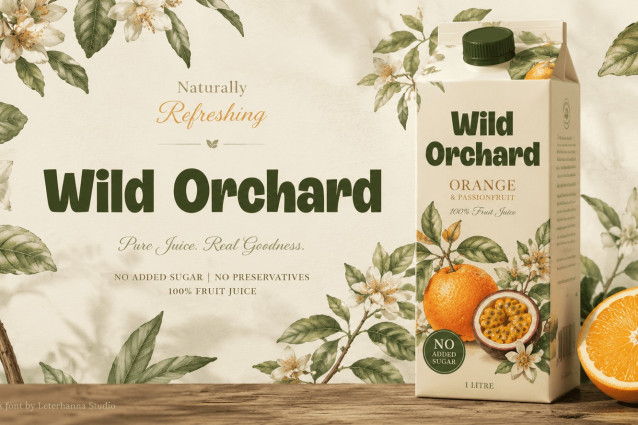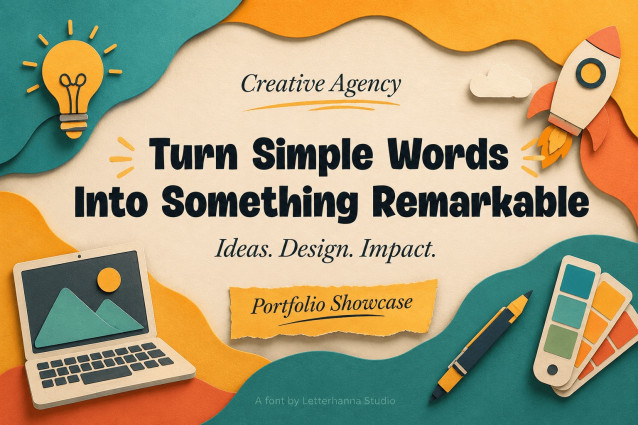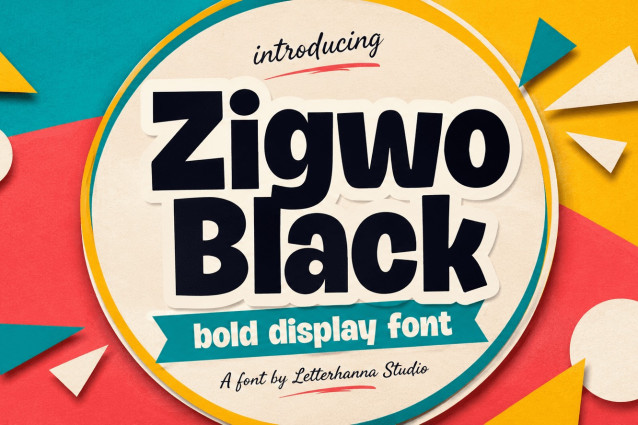
The idea behind Zigwo Black came from a question worth asking about any thick font on the market: why do so many “bold” typefaces feel heavy but forgettable? Weight alone doesn’t guarantee impact. A font can be massive and still fade into the background if it lacks rhythm, warmth, or personality.
So the design process started small — one chunky alphabet letters sketch at a time. Each letterform was tested not just for thickness, but for how it felt sitting next to its neighbors. Did the word still breathe? Did the shape stay friendly at large sizes and still hold together at small ones? Letter by letter, the alphabet took shape around one goal: bold enough to lead a headline, human enough to still feel inviting.
Say hello to Zigwo Black, a bold display font built for designs that refuse to blend in. This is a chunky font through and through — thick, confident strokes paired with slightly rounded, hand-finished edges that give every letter real personality. Uppercase forms feel like solid stamped blocks, while the lowercase alphabet keeps a bouncy, playful rhythm that softens all that boldness into something genuinely inviting.
Zigwo Black was designed to solve a common problem: too many bold fonts look heavy but feel stiff. This one is different. It’s loud without being aggressive, thick without losing clarity, and playful without sacrificing structure. Whether you’re designing snack packaging, event posters, streetwear graphics, kids’ brand logos, or scroll-stopping Instagram headlines, this font brings instant energy and shelf-stopping presence to the page.
The chunky alphabet letters stay legible even at heavy weight, holding their shape whether they’re printed three inches tall on a poster or shrunk down for a mobile screen. It’s a thick font that performs — not just a pretty specimen image.